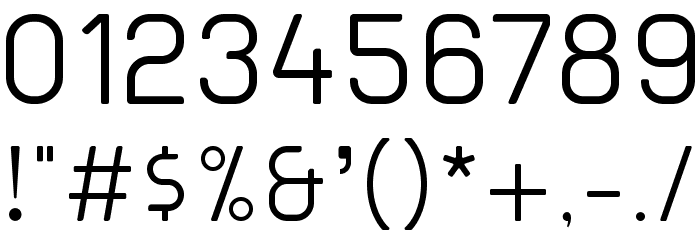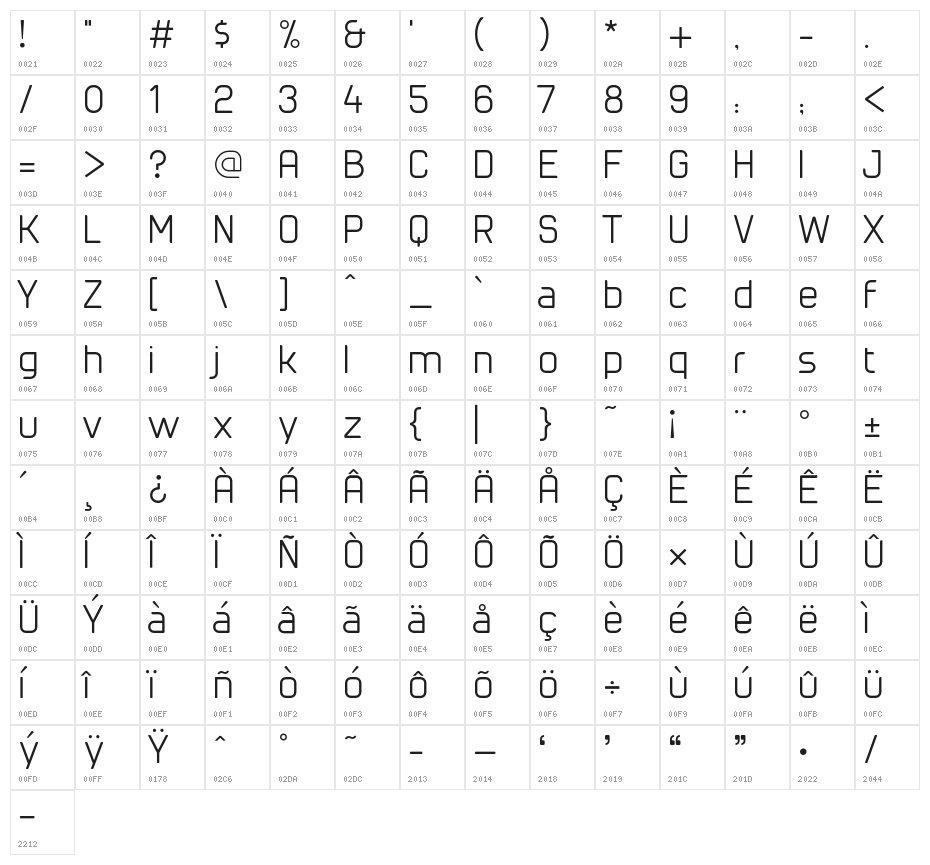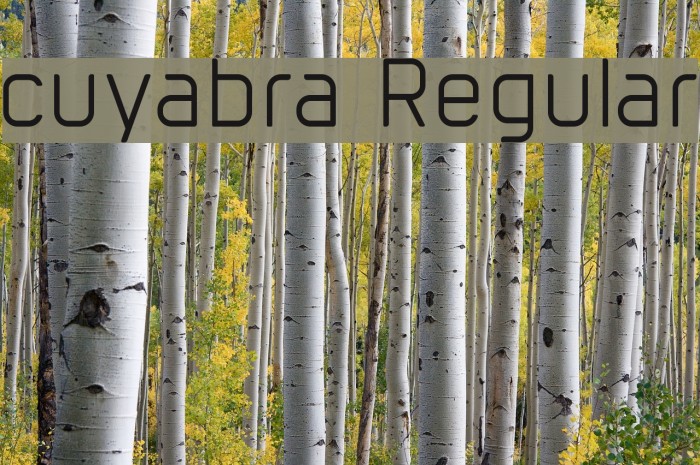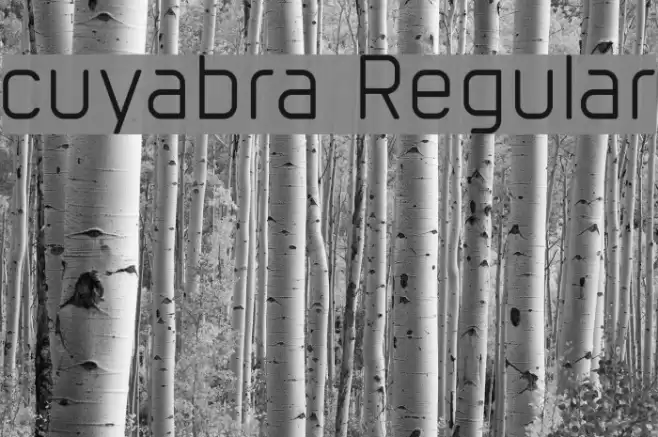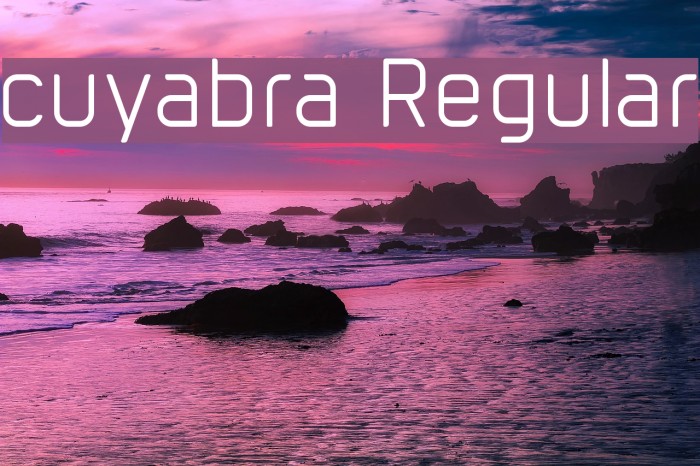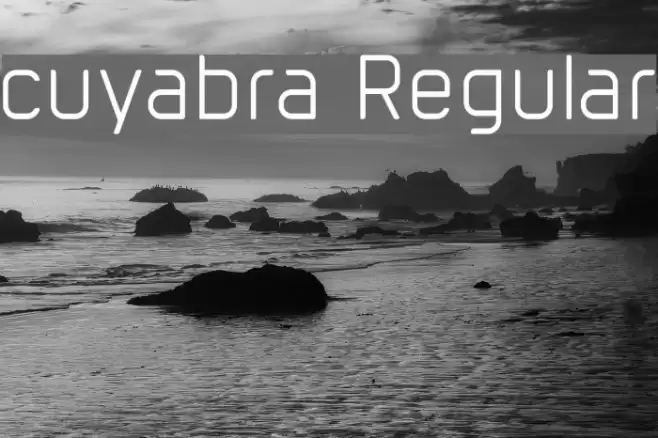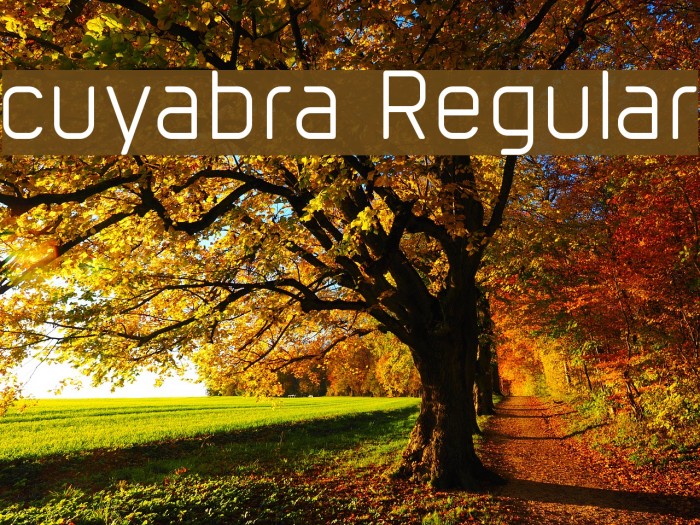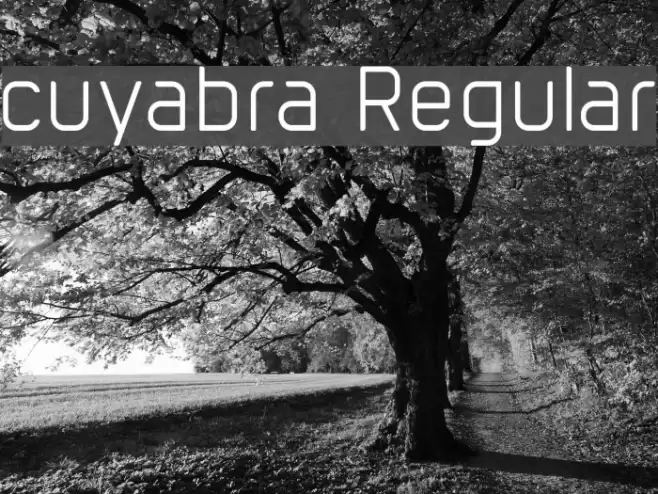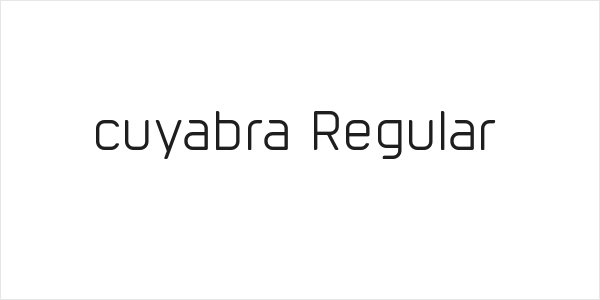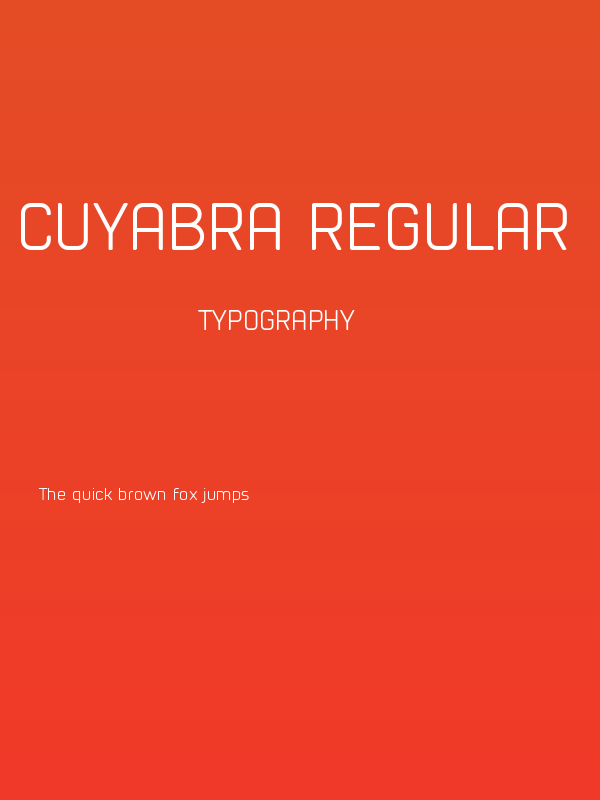
cuyabra Regular Font
cuyabra Regular Description
This font features a clean and modern sans-serif design with rounded edges, giving it a friendly and approachable appearance. The characters are uniformly structured, providing a harmonious and balanced look across both uppercase and lowercase letters. The numerals are clear and easy to read, maintaining the same rounded aesthetic. Special characters are well-integrated, ensuring consistency throughout the typeface. The overall design is sleek and contemporary, making it suitable for a wide range of applications.
| Proposed Projects | Ideal for tech branding, user interfaces, modern advertising, and minimalist design projects. |